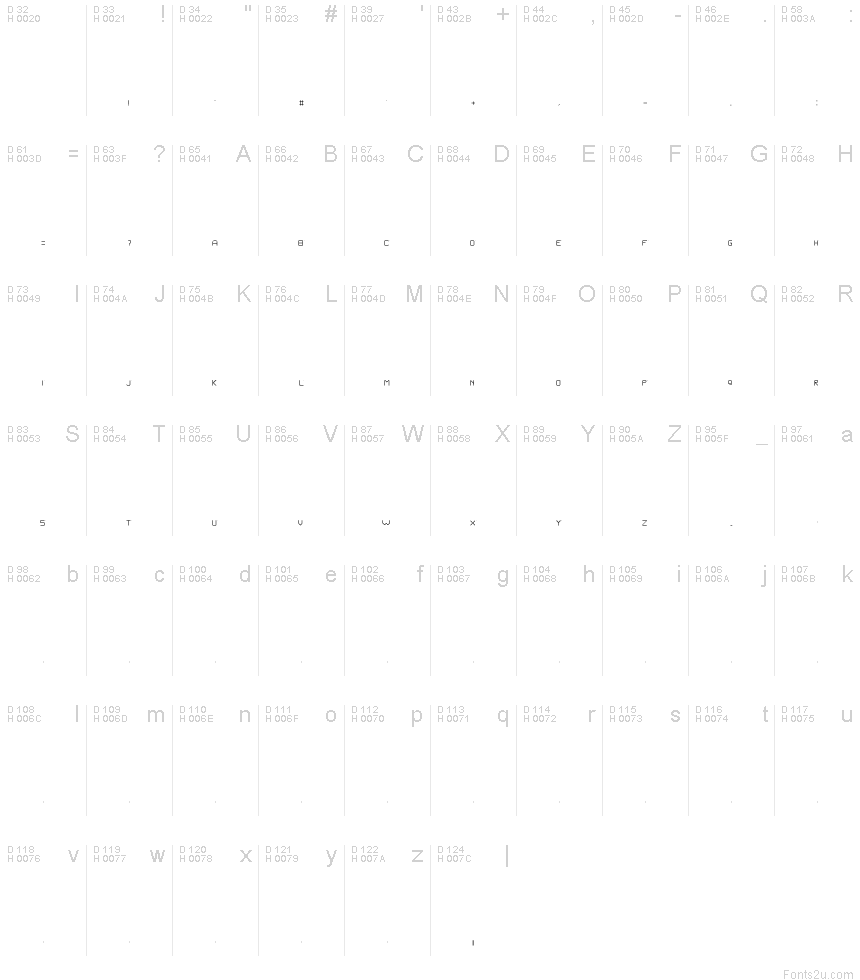
C-BLOCKS, created by Wolf Lambert of FSI FontShop International GmbH, is a free outlined pixel font with rigid rectangular strokes. Its broad letters follow a coarse digital grid, with squared corners and stark interior spaces. Tiny detached pixels sharpen the electronic look.
It can mimic a scoreboard or early computer interface in game graphics. The same modular construction suits technology branding and electronic music posters beside circuit patterns or tiled artwork. Across these uses, the block grid connects the type directly to digital hardware and arcade imagery.